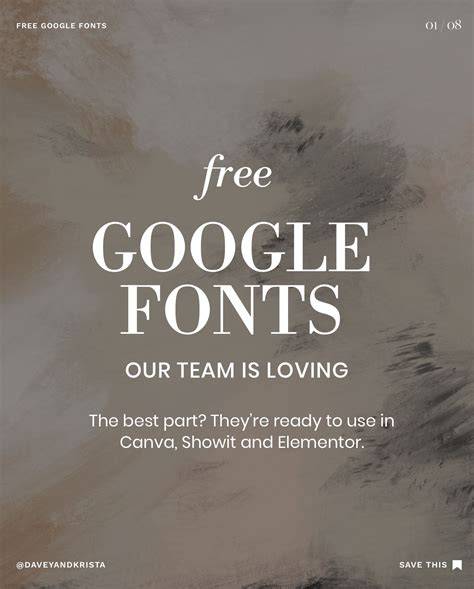
The Benefits Of Google Fonts: A Comprehensive Guide To All Of Their Free Fonts In 2023
Since its launch in 2010, Google Fonts has grown to become one of the most widely used font libraries on the web. With hundreds of free fonts to choose from, it’s no wonder why designers, developers, and marketers are so eager to get their hands on the best fonts available. Whether you’re a professional or an amateur, Google Fonts can provide you with the perfect font for any project. In this guide, we’ll look at all of the free fonts Google Fonts has to offer in 2023, so you can make an informed decision and choose the best font for your project.
What Are Google Fonts?
Google Fonts is an online library of over 800 free fonts. It was launched in 2010 with the goal of making it easier for designers and developers to find the perfect font for their project. The library includes fonts from hundreds of different families and styles, making it easy to find a font that fits your needs, style, and budget. Plus, all of the fonts are optimized for the web, making them quick and easy to use.
Google Fonts also makes it easy to customize your font selection. You can filter fonts by language, weight, width, and slant, as well as see how they’ll look in different sizes, shapes, and colors. Plus, you can use the Google Fonts API to integrate the fonts into your website or app, allowing you to quickly and easily customize the look and feel of your project.
Types of Free Fonts Available on Google Fonts
There are over 800 fonts available on Google Fonts, and they come in a variety of different styles and families. Some of the most popular styles include sans-serif, serif, display, handwriting, and monospace fonts. Each style has its own unique look and feel and can be used for a wide range of projects.
In addition to the variety of font styles, there are also different font weights and widths available. Font weights range from thin to thick, while font widths range from condensed to extended. This gives you the ability to customize your font selection even further and create the perfect look for your project.
The Benefits of Using Google Fonts
Google Fonts has become so popular because it offers several key benefits. For starters, it’s free to use. You don’t have to pay any licensing fees or purchase any font packs. Plus, it’s fast and easy to use. You can quickly find and add the perfect font to your website or app, allowing you to create a beautiful, professional look in minutes.
And because Google Fonts is optimized for the web, it can help improve your website’s performance. The fonts are designed to load quickly and take up less bandwidth, which can help pages load faster and reduce page load time. Plus, the fonts are optimized for mobile devices, so they look great no matter what device your visitors are using.
Google Fonts is an excellent resource for any designer, developer, or marketer. With hundreds of free fonts to choose from, you’re sure to find the perfect font for any project. Plus, it’s fast and easy to use, and it can help improve your website’s performance. So if you’re looking for a great way to customize the look and feel of your project, Google Fonts is a great option.